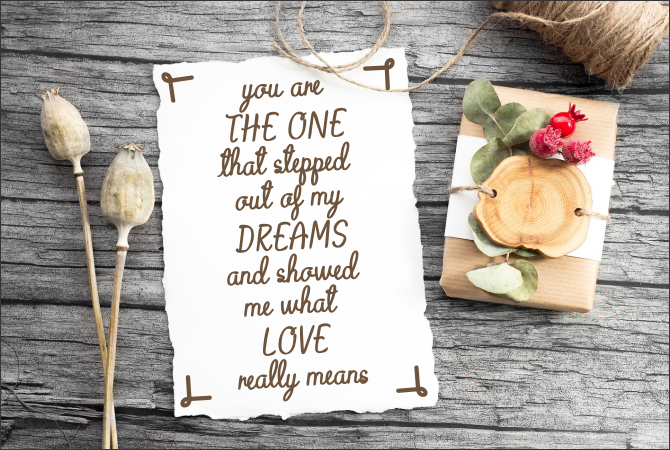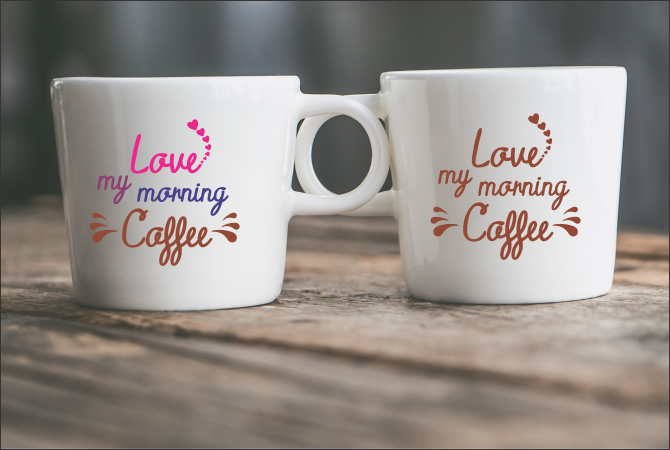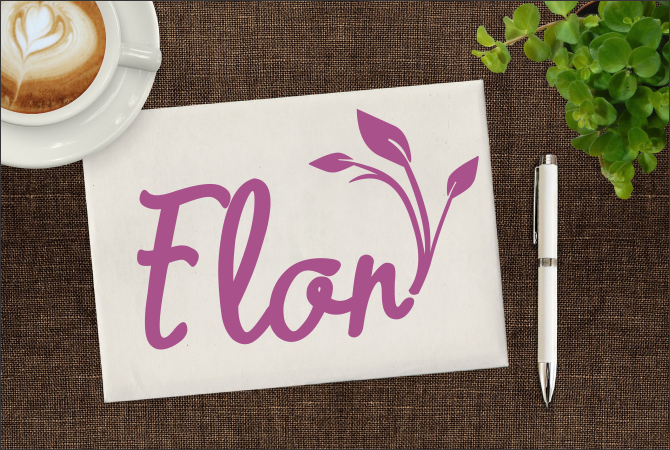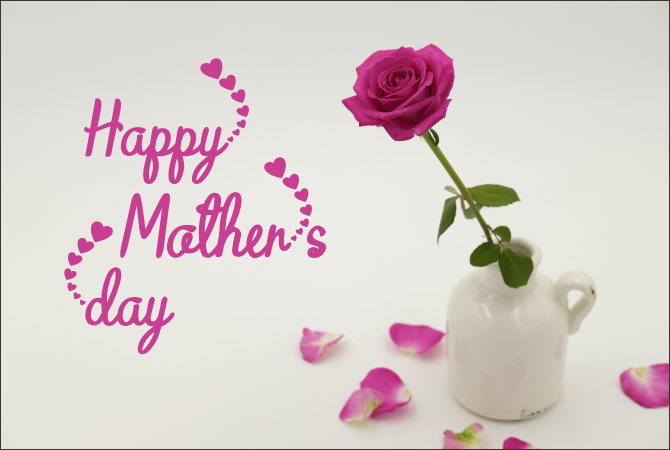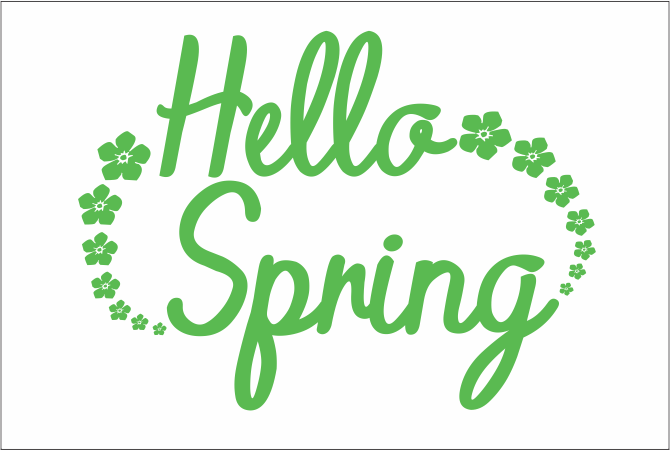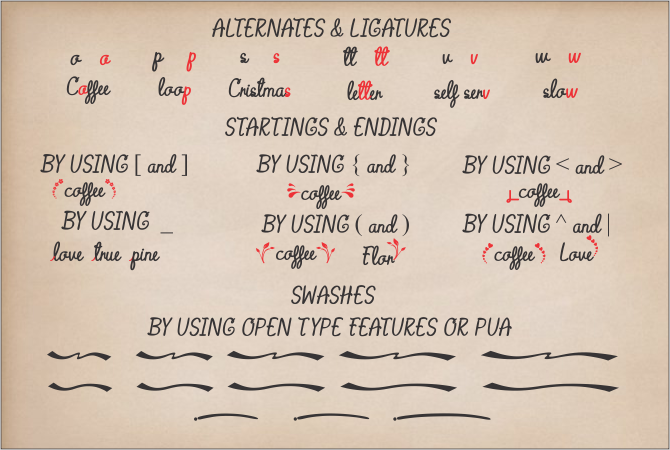
The Ultimate Guide to Alaska Coffee Font: A Homey and Friendly Design Essential
I’ll never forget the time I was working on a cozy cabin design project, and I just couldn’t find the right font to capture that warm and fuzzy feeling. My client wanted something that screamed “welcome to the woods,” but everything I tried felt either too generic or too over-the-top. That’s when I stumbled upon the Alaska Coffee font, and it was love at first sight! 💕
In this article, I’ll share my experience with this stunning script font, its characteristics, and how to make the most of it in your designs. Whether you’re a designer, crafter, or creative hobbyist, you’ll learn how to harness the power of Alaska Coffee to add a touch of homey charm to your projects.
What Makes Alaska Coffee Font So Special?
Alaska Coffee is a beautiful script font that exudes a sense of natural handwriting with a nice weight and character set. It’s perfect for giving your designs a friendly, approachable feel that’s sure to resonate with your audience.
What I Love About Alaska Coffee Font ✨
- ✅ Natural Handwriting Feel: The font’s organic, handwritten look makes it perfect for designs that require a personal touch.
- ✅ Readability: Alaska Coffee is clear and easy to read, even at smaller font sizes.
- ✅ Versatility: This font works beautifully for a wide range of design projects, from branding and packaging to invitations and social media graphics.
- ✅ Unique Character Set: The font comes with a lovely selection of glyphs and stylistic alternates to add visual interest to your text.
- ⚠️ Limited Use in Formal Designs: While Alaska Coffee is amazing for friendly, casual designs, it might not be the best fit for more formal or corporate projects.
- ⚠️ Kerning Issues: As with any script font, you might need to adjust the kerning to ensure optimal spacing between letters.
The Story Behind Alaska Coffee Font
Legend has it that the creator of Alaska Coffee was inspired by the charming, handwritten signs found in cozy coffee shops across the Pacific Northwest. They aimed to bottle that warm, fuzzy feeling in a font that would bring a smile to users’ faces. And, judging by the font’s popularity, I’d say they succeeded! 😊
| Q: Is Alaska Coffee font suitable for body text? | A: While Alaska Coffee is a beautiful font, it’s best suited for headings, titles, or short paragraphs. For longer body text, consider a more traditional, serif font. |